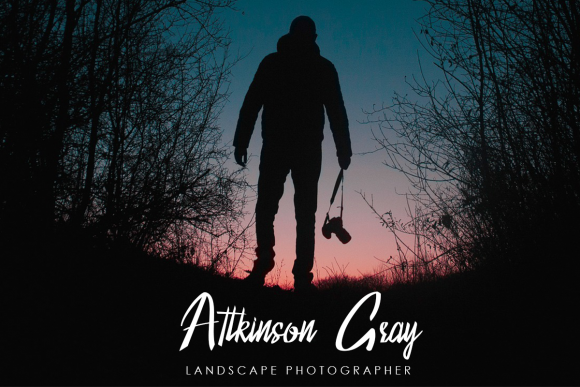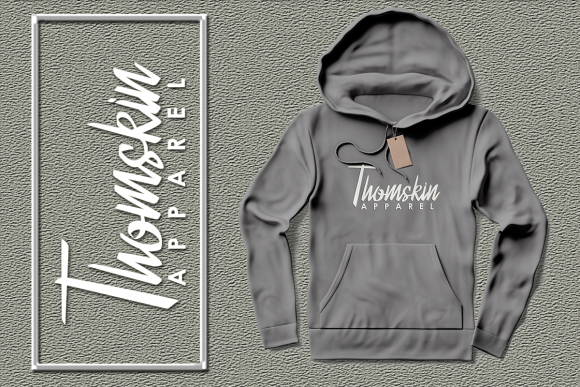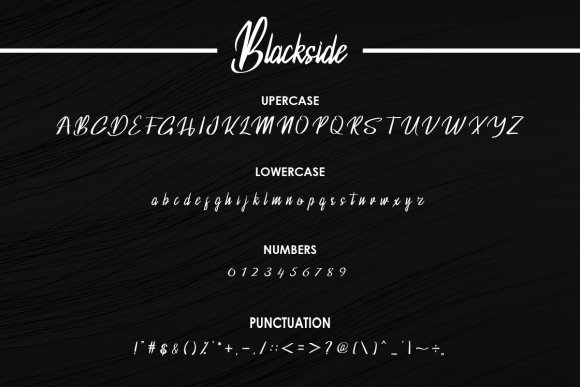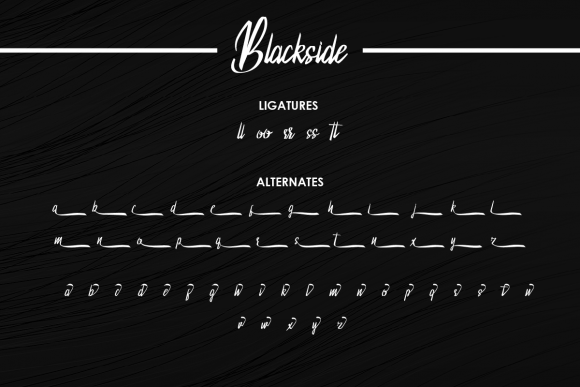
Introduction to Blackside Font
Do you remember the moment when you stumbled upon the perfect font for your creative project? For designers, it’s a moment of pure joy, and it can make all the difference in bringing your vision to life. I still recall the thrill of finding the perfect handwritten font to add a touch of romance to a client’s wedding invitation.
That’s where Blackside Font comes in – a bold and classic handwritten font that’s sure to capture the hearts of designers and non-designers alike. With its wide spectrum of applications, from greeting cards to headlines, Blackside Font is a valuable resource for any creative project. Whether you’re working on a high-quality design or a simple yet elegant invitation, this font is guaranteed to add a touch of sophistication and whimsy to your work.
What sets Blackside Font apart is its PUA encoding, making it easy to access all of the glyphs and swashes with ease. And the best part? You can download it for free, perfect for designers on a budget or those looking for a high-quality design resource to add to their collection.
Key Features of Blackside Font
- High-quality design resource with a unique, creative style perfect for various projects.
- Features a transparent background, allowing for seamless integration into any design.
- Includes a range of characters, including uppercase and lowercase letters, numbers, and special symbols.
Honest Review: Blackside Font
I recently stumbled upon the Blackside Font, and I must say it’s a fantastic addition to any creative project. The font has a unique, edgy feel to it that can add a touch of sophistication to any design. The best part? It’s available as a free download, making it a great design resource for anyone working on a budget.
One of the standout features of the Blackside Font is its high quality. The font is crisp and clean, with a transparent background that makes it easy to work with. I’ve found it to be particularly useful for designing graphics and logos.
- Unique and edgy design
- High quality and crisp lines
- May not be suitable for all types of creative projects (e.g. children’s books)
- Limited font styles and variations
Overall, I’m impressed with the Blackside Font. It’s a great addition to any designer’s toolkit, and I’ve found it to be particularly useful for designing bold and eye-catching graphics. Just be aware of its limitations, and you’ll be well on your way to creating some amazing designs.
How to Use Blackside Font
Using Blackside Font in Creative Projects
The Blackside Font is a high-quality design resource ideal for creative projects. Its unique style and transparent background make it perfect for adding a touch of elegance to your designs.
Tips for Getting the Most Out of Blackside Font
To get the most out of the Blackside Font, experiment with different font sizes, colors, and combinations to create unique and eye-catching designs.
The Blackside Font is commonly used in:
- Business cards and branding materials
- Photography and design portfolios